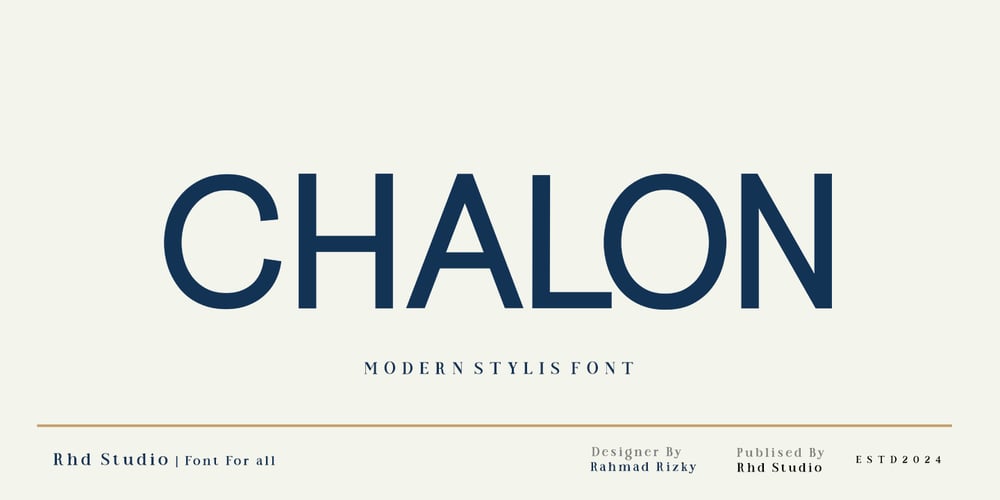
Chalon Font Family was designed by Rahmad Rizky and published by Rhd Studio. Chalon contains 3 styles and family package options. Chalon is a Modern Corporate Sans Serif Font is a balanced modern Corporate font with a minimalist, unique and iconic sans serif, a font that you can combine to get any variety and unique shape easily in just seconds by selecting its alternatives and 3 weights for Regular, Bold and italic. This is a sans serif font with a minimalist style that is suitable for branding projects, logos, poster designs, social media posts, advertisements, product packaging, product designs, labels, photography, watermarks, invitations, stationery and any project, created with a high level of readability.Using Adobe Illustrator or Adobe Photoshop is recommended. Hope you enjoy our fonts.